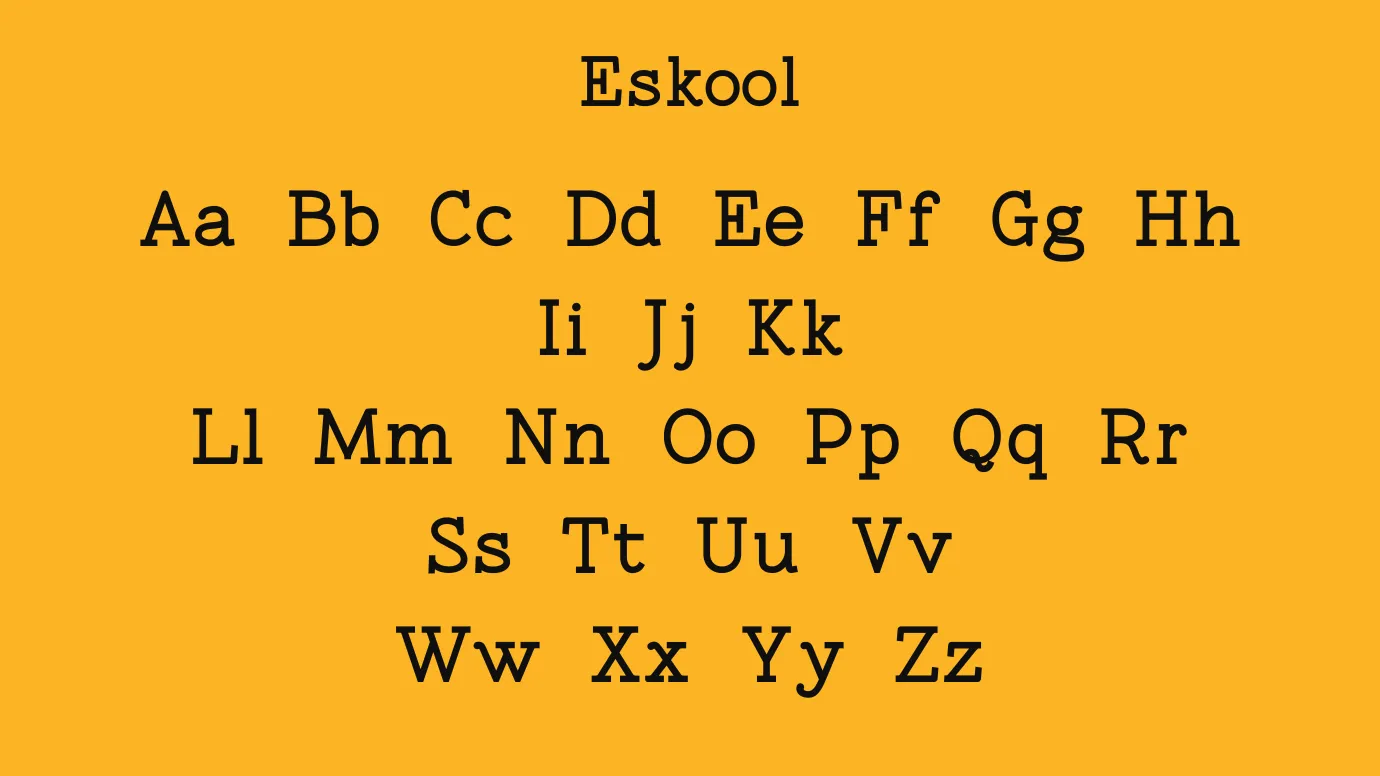
Eskool font is a very playful Serif typeface. This font is designed by a famous designer who belongs to India. His name is Saksham Verma. It is perfect for making all types of educational projects.
It was first launched in 1997. It was initially not released as full full-character set but after some time it’s all characters in small letters and capital letters with all other necessary items for any personal and commercial projects.
| Name | Eskool Font |
| Designer | Saksham Verma |
| Type | Serif |